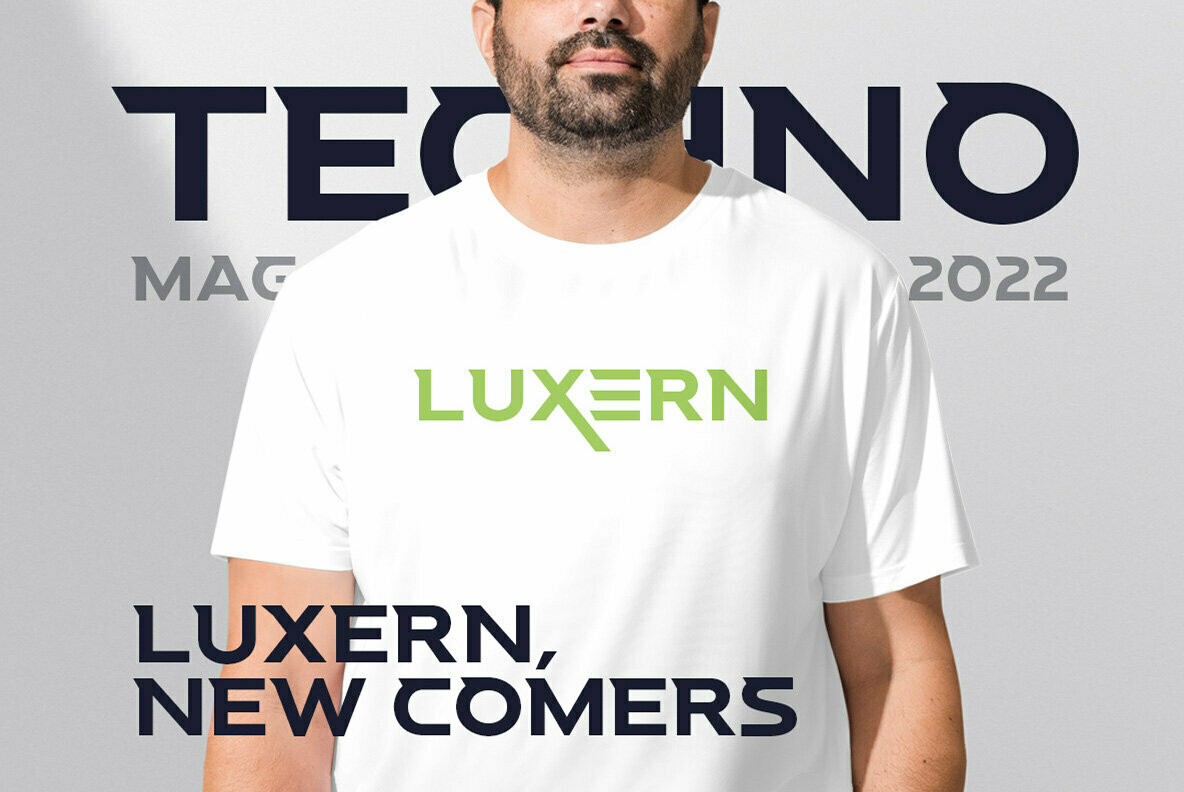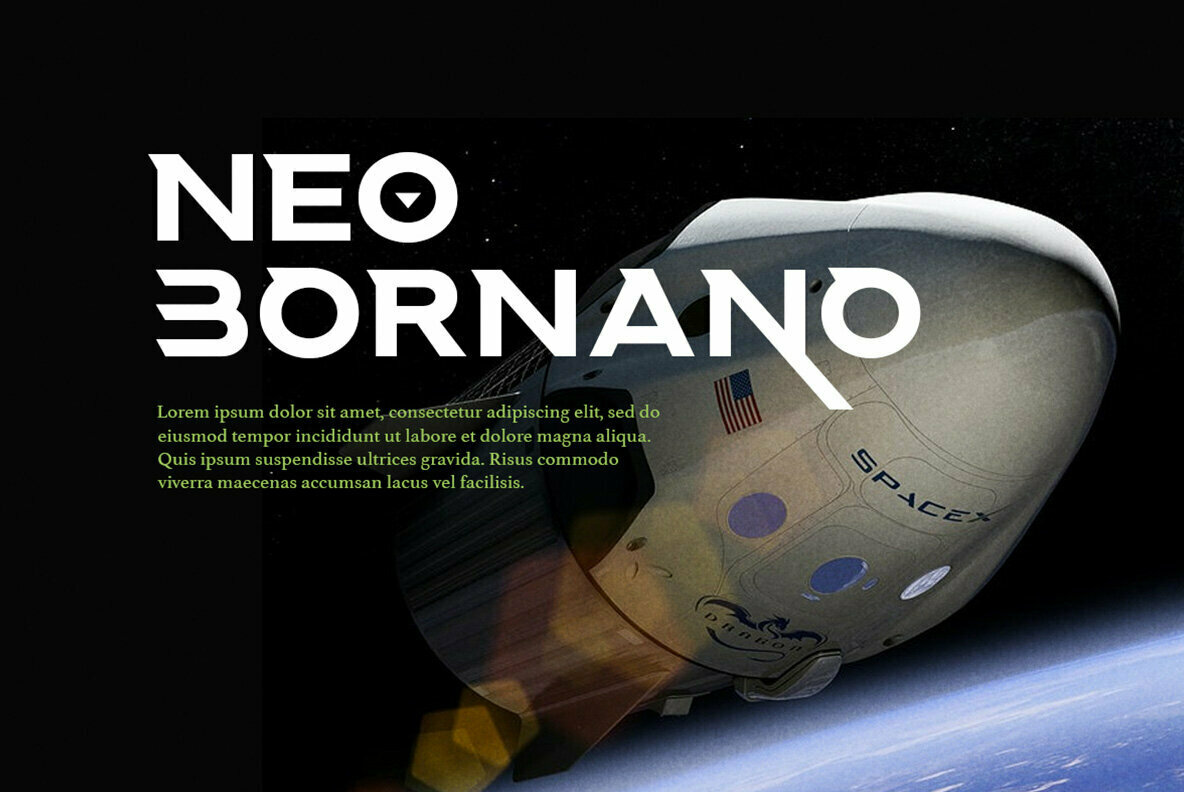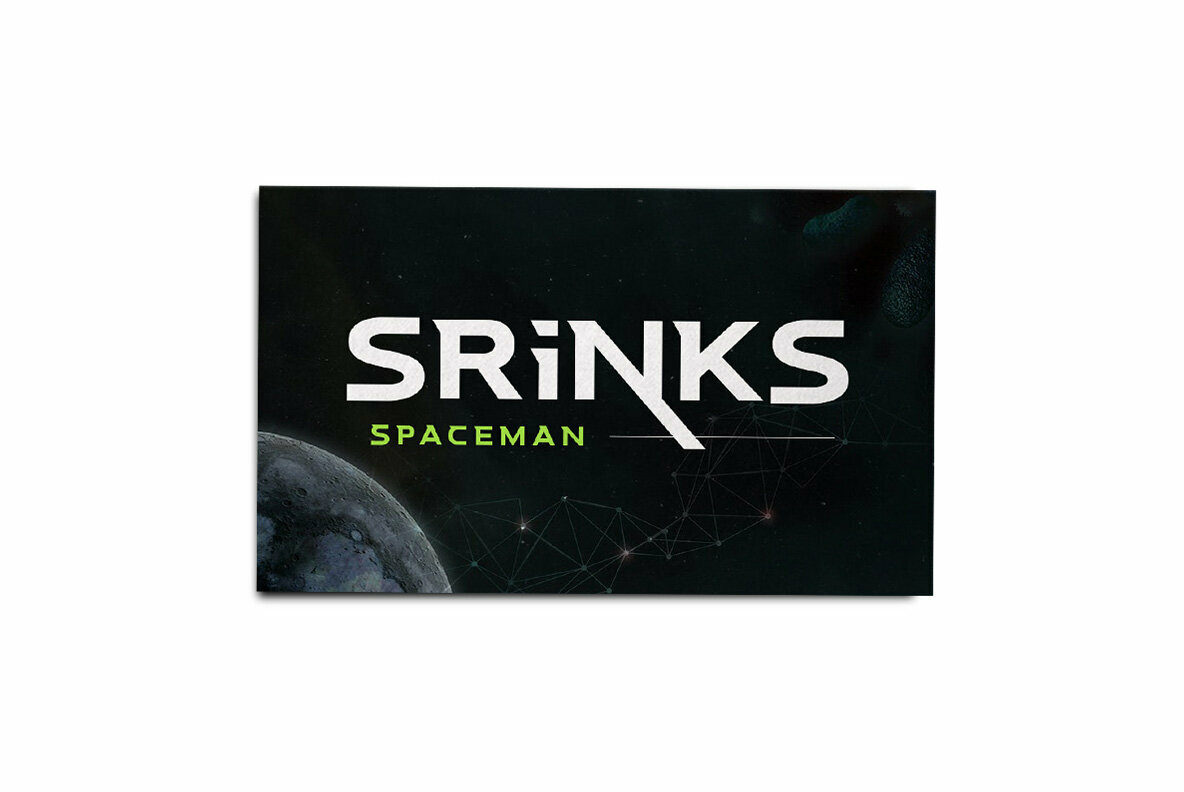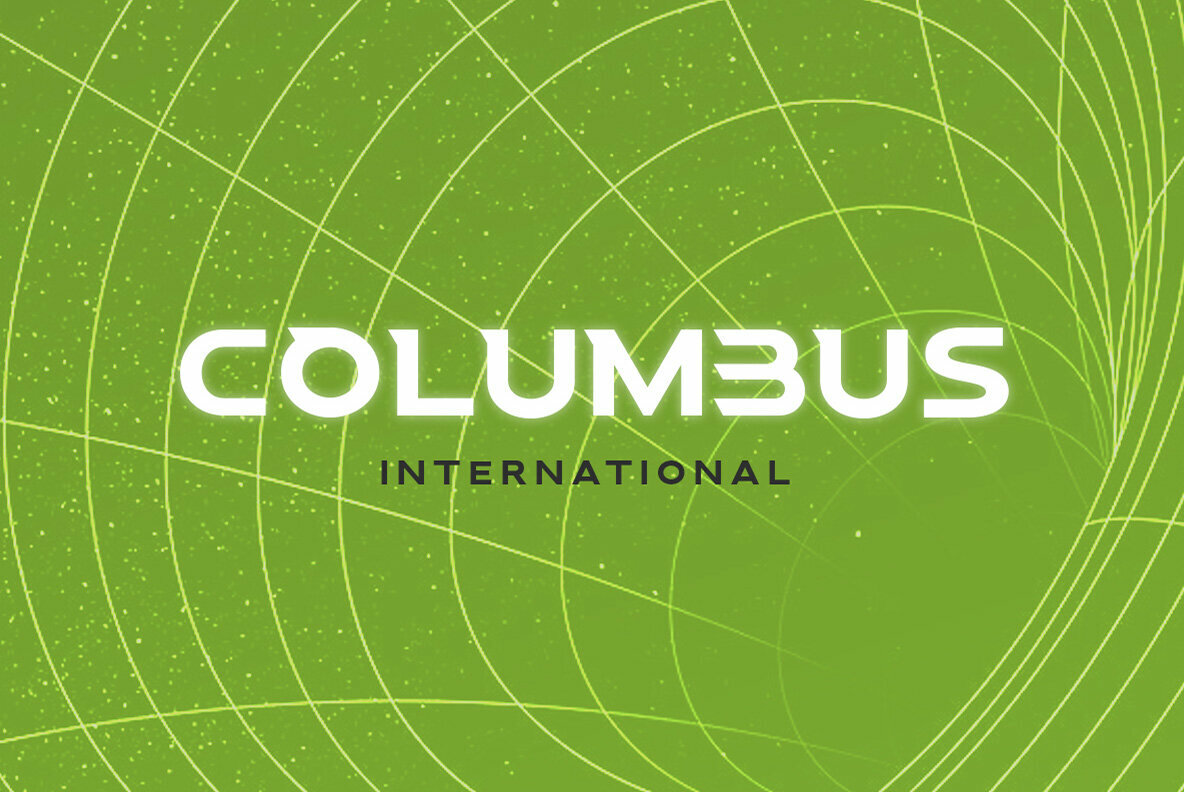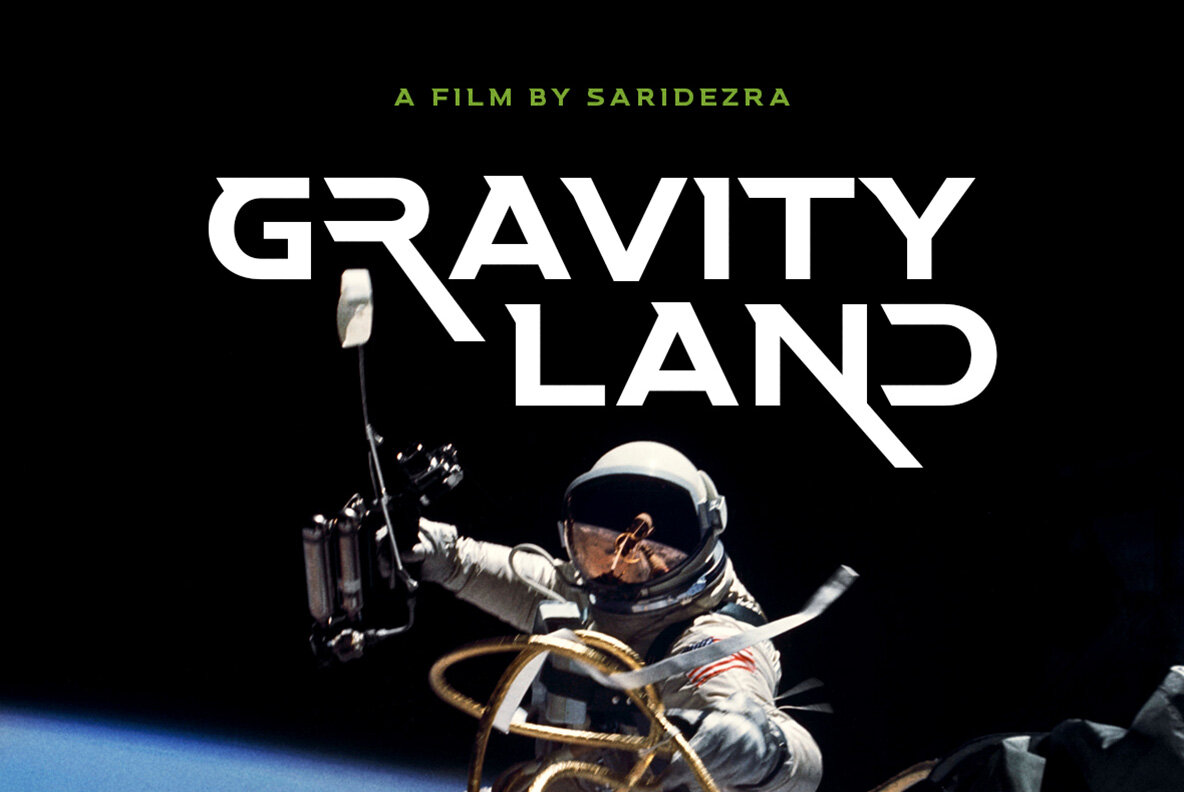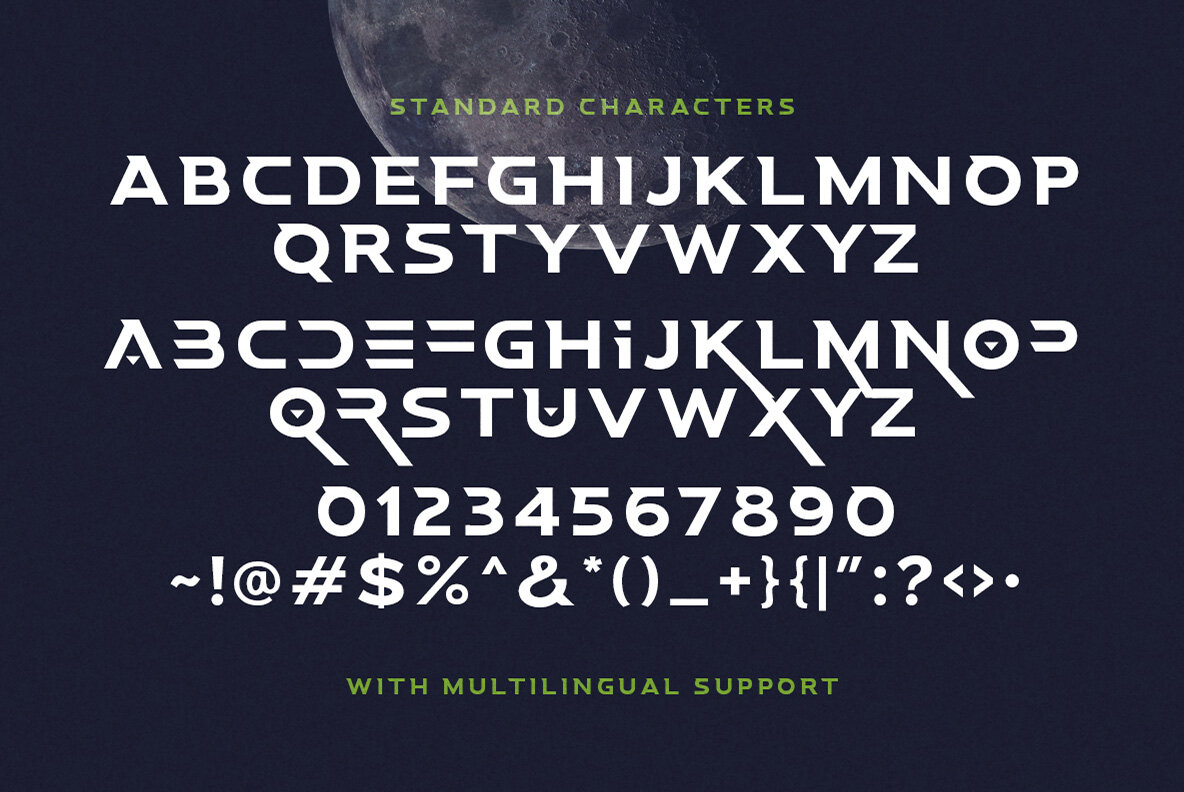
Space Boards Font
Space Boards introduces a dynamic sans-serif typeface that inherently embodies modernity and futurism. Specially designed to enliven your tech-oriented branding, this font crafts an avenue for innovation across design mediums.Space Boards: Sci-Fi Logo Font with Futuristic Flair
This versatile font allows you to effortlessly blend uppercase and lowercase variations, crafting logos that truly capture attention.